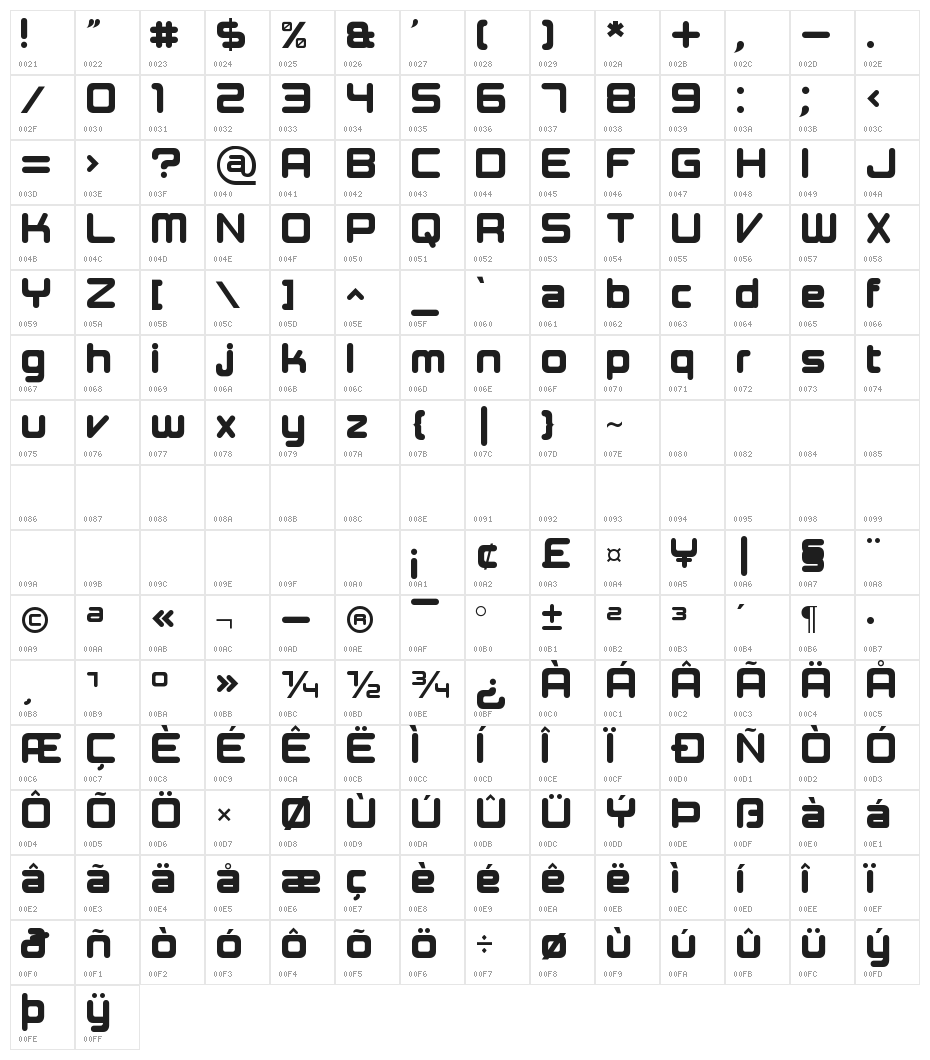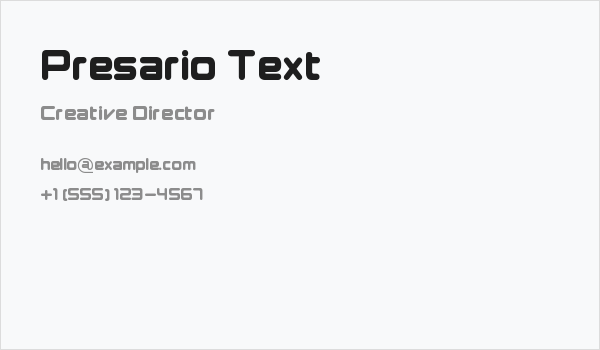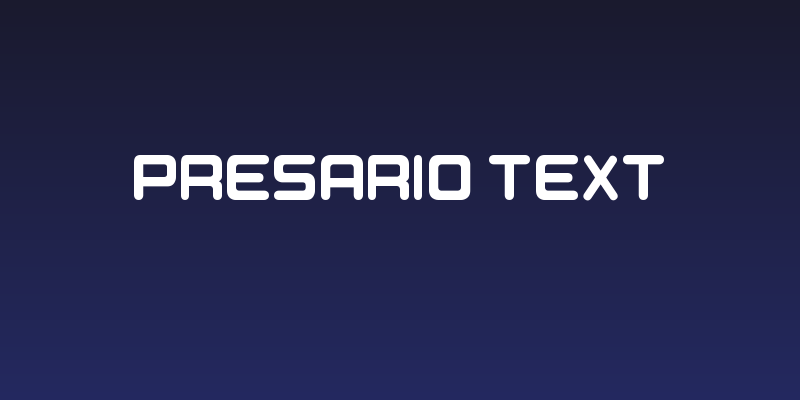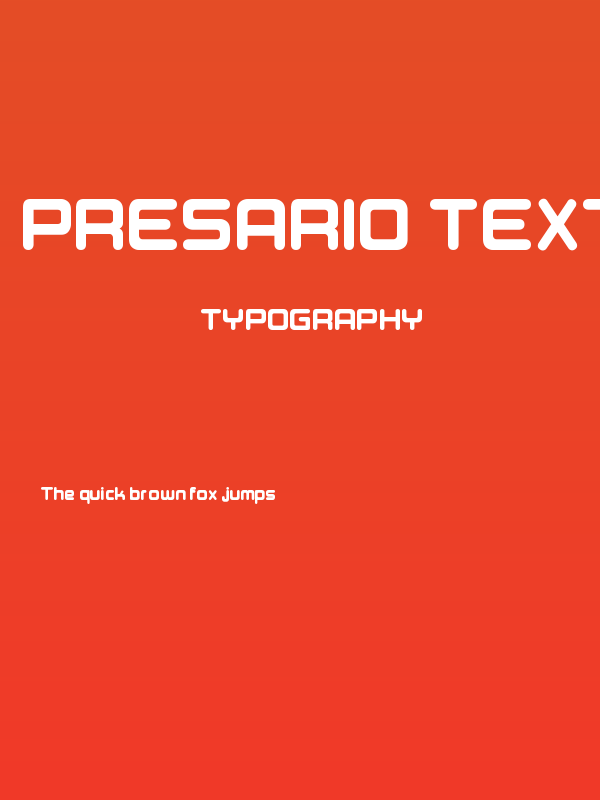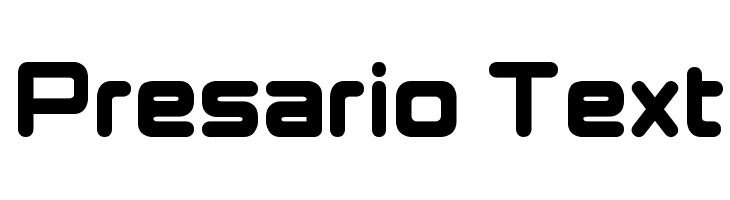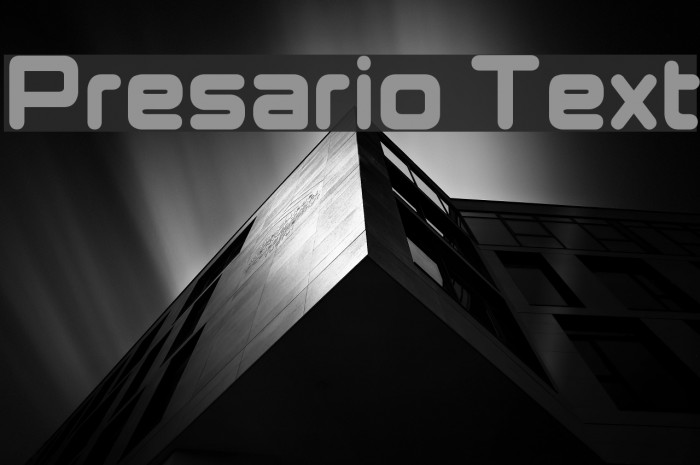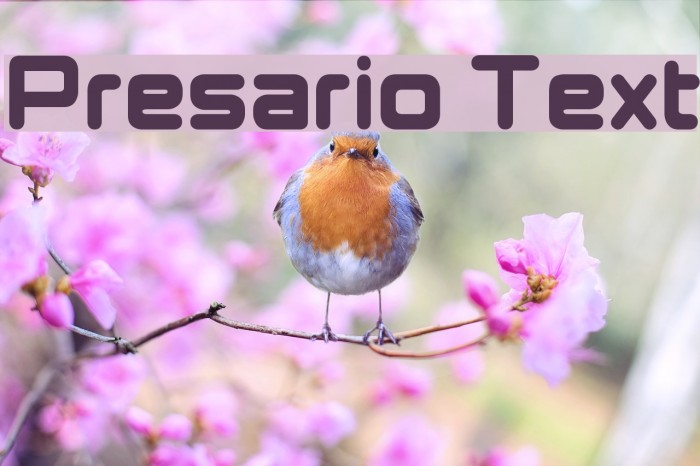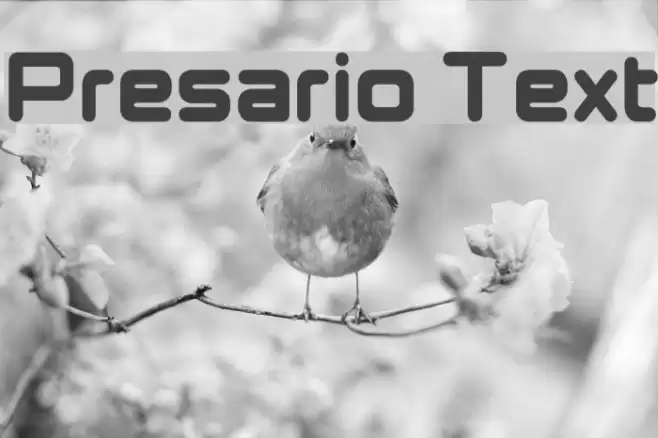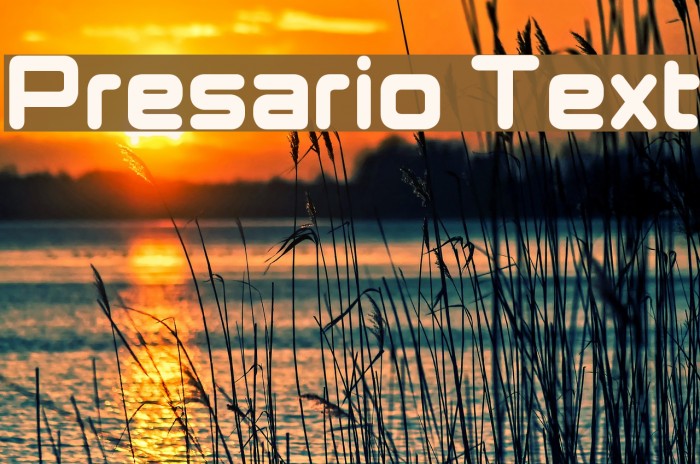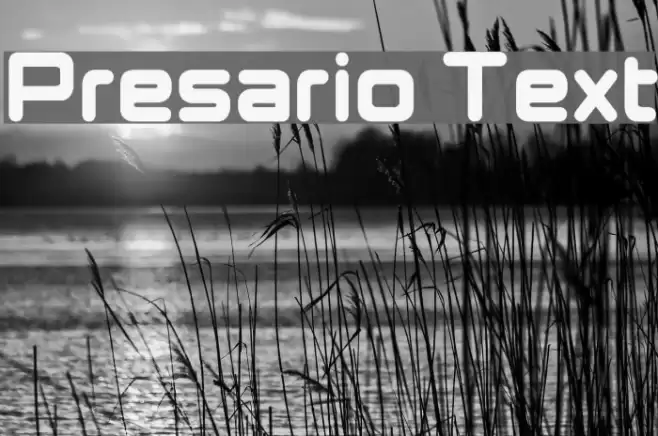
Presario Text Font
Presario Text Description
This font features a modern, rounded sans-serif style with a clean and geometric appearance. The characters are bold and uniform, with consistent stroke widths that give it a sturdy and balanced look. The rounded edges soften the overall feel, making it approachable and friendly. The uppercase and lowercase letters maintain a consistent height, contributing to its orderly and structured design. The numerals and special characters are crafted with the same attention to detail, ensuring readability and coherence across all elements. This font is versatile, suitable for both digital and print media, and can be used effectively in various design contexts.
| Use Case | Headlines, Logos, Digital Interfaces |
| Proposed Projects | Ideal for branding, signage, digital interfaces, and editorial design. |